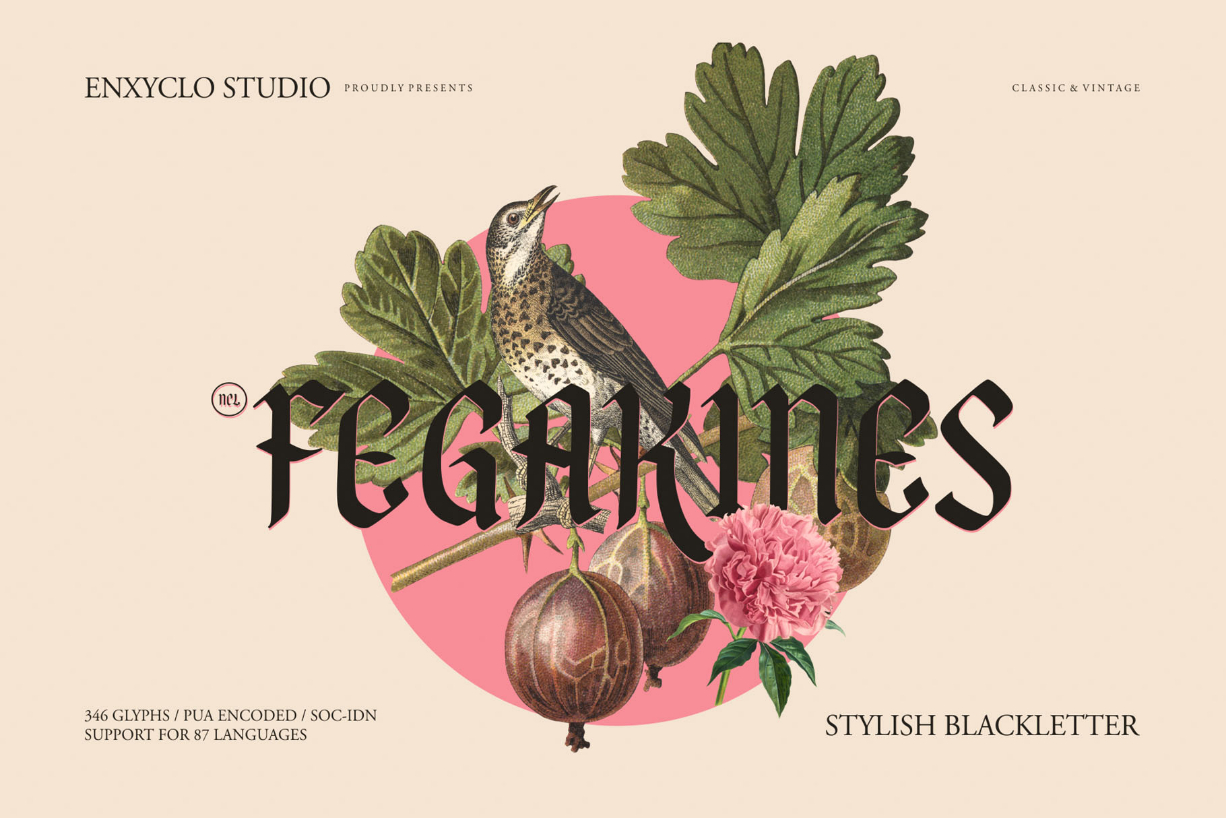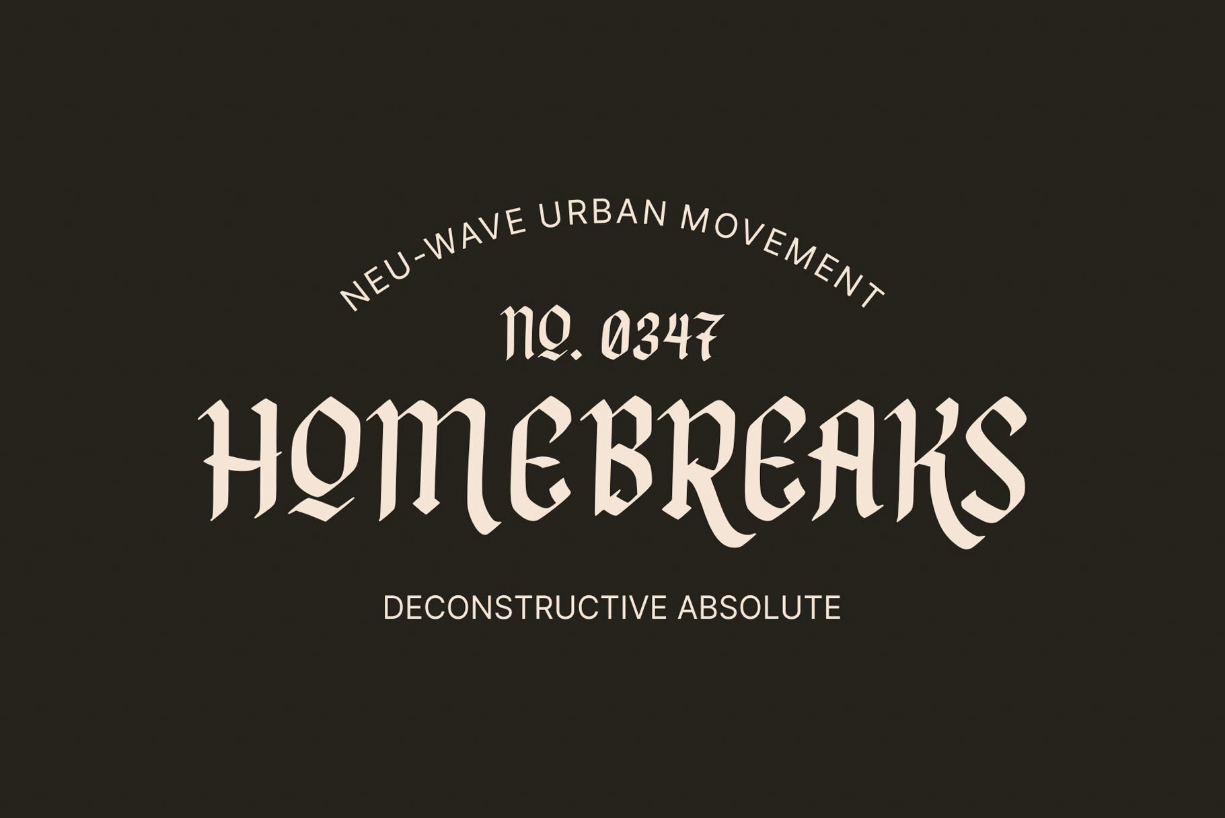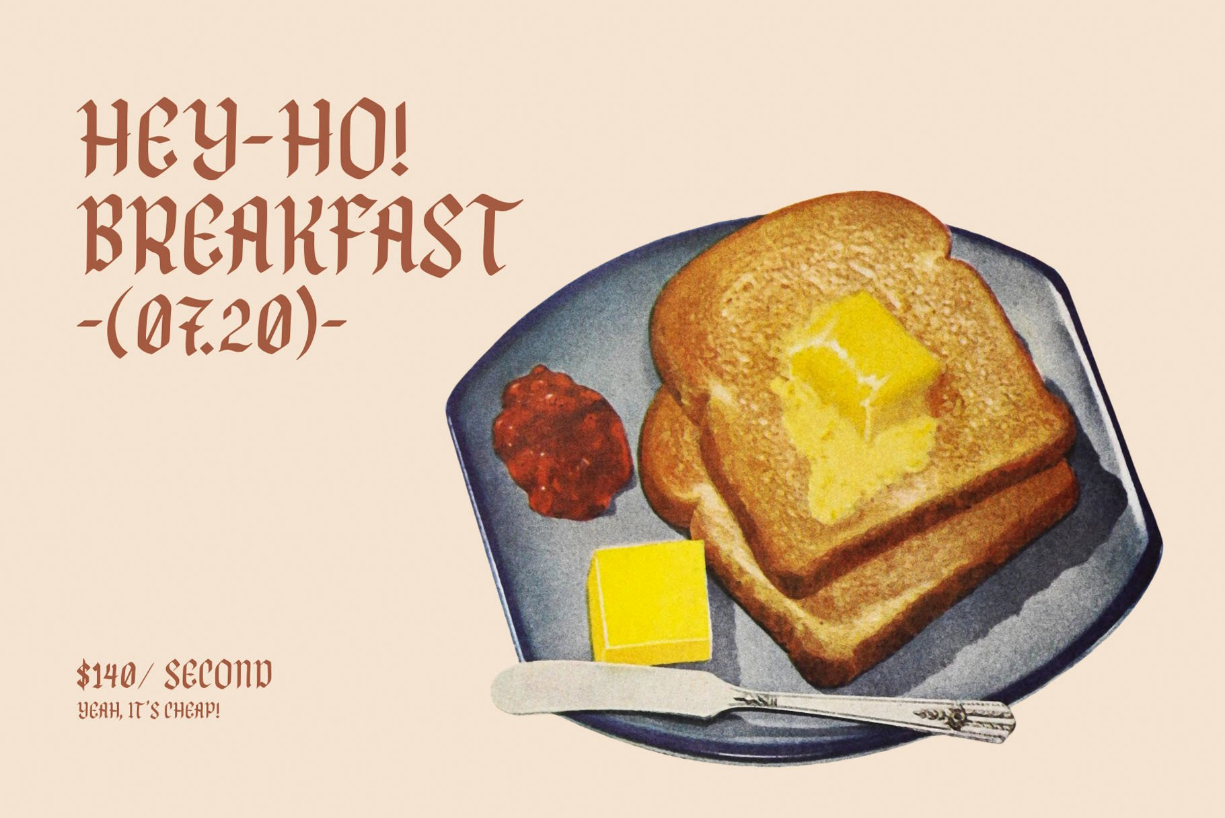
About Fegakines Font
Fegakines is a unique, stylish, and modern blackletter display font. Masterfully designed to become a true favorite, this font has the potential to bring each of your creative ideas to the highest level!